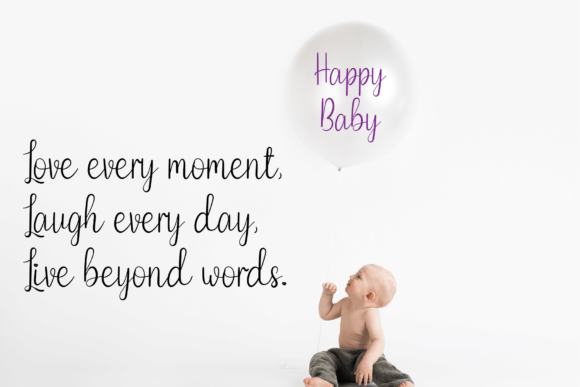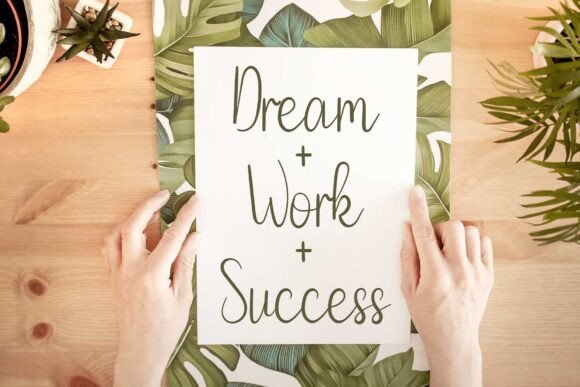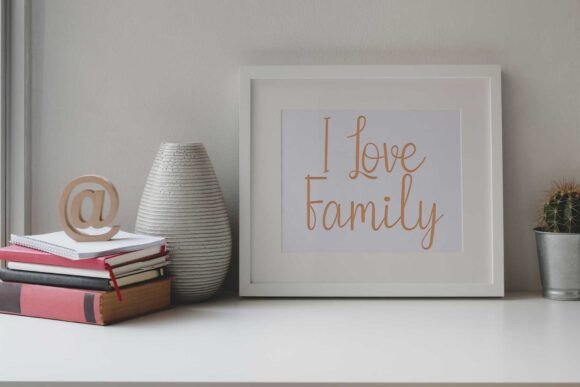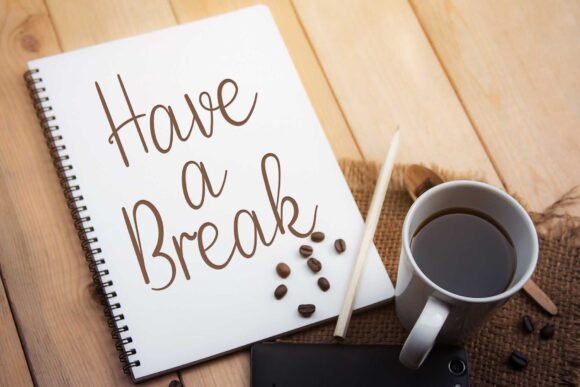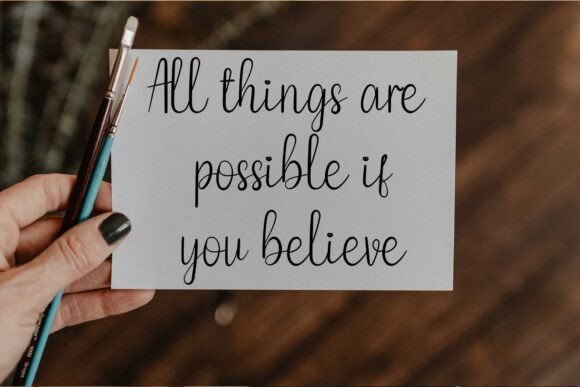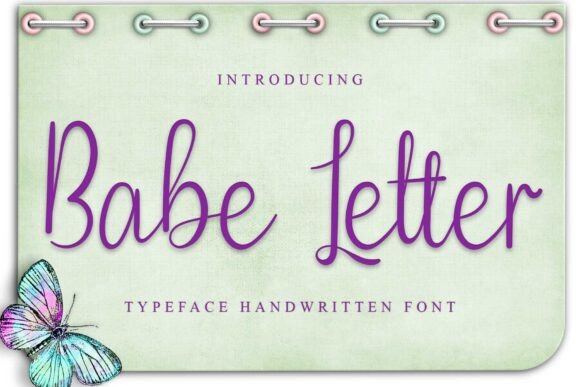
Babe Letter Font: Elevate Your Designs with Elegance and Sophistication
Are you tired of using the same old fonts in your designs? Look no further! Introducing Babe Letter Font, a unique and elegant font specially designed to add a touch of sophistication to your projects. With its professional hand touch, this font is perfect for designers and crafters looking to create stunning visual content.
The Perfect Font for Your Projects
Babe Letter Font is a versatile font that can be used in a variety of projects, from wedding invitation cards and birthday greetings to party invitations and more. Its elegant and refined design makes it ideal for creating beautiful and eye-catching visual content. Whether you’re a designer, crafter, or DIY enthusiast, this font is sure to become a favorite in your toolkit.
Key Features of Babe Letter Font
- Unique and Elegant Design: Babe Letter Font boasts a distinctive and sophisticated design that’s sure to set your projects apart from the rest.
- Professional Hand Touch: With its carefully crafted lettering, this font exudes a sense of professionalism and attention to detail.
- Versatile and Adaptable: Use Babe Letter Font in a wide range of projects, from digital designs to print materials.
- Easy to Read and Understand: Despite its elegant design, this font remains clear and easy to read, making it perfect for body text and headings.
Use Cases for Babe Letter Font
So, where can you use Babe Letter Font? The possibilities are endless! Here are some ideas to get you started:
- Wedding Invitation Cards: Add a touch of romance and elegance to your wedding invitations with Babe Letter Font.
- Birthday Greetings: Create stunning birthday cards and invitations with this beautiful font.
- Party Invitations: Use Babe Letter Font to create eye-catching party invitations for birthdays, baby showers, and more.
- Digital Designs: Incorporate this font into your digital designs, such as social media graphics, blog headers, and more.
Why Choose Babe Letter Font?
With so many fonts available, why choose Babe Letter Font? Here are just a few reasons why this font stands out:
- High-Quality Design: Babe Letter Font is designed with care and attention to detail, ensuring a high-quality finish.
- Unique and Exclusive: This font is one-of-a-kind, so you can be sure that your designs will stand out from the crowd.
In conclusion, Babe Letter Font is a unique and elegant font that’s perfect for designers and crafters looking to add a touch of sophistication to their projects. With its professional hand touch, versatile design, and ease of use, this font is sure to become a favorite in your toolkit. So why wait? Download Babe Letter Font today and start creating stunning visual content that will leave a lasting impression!